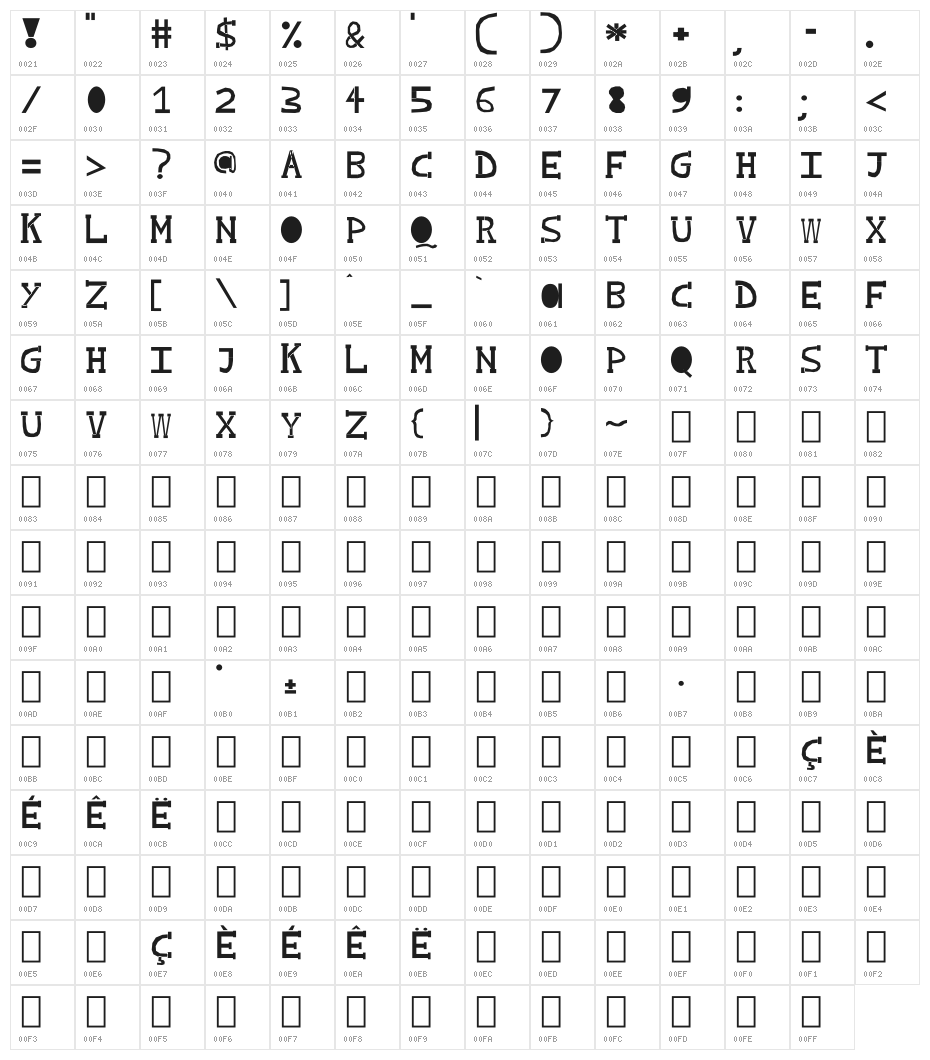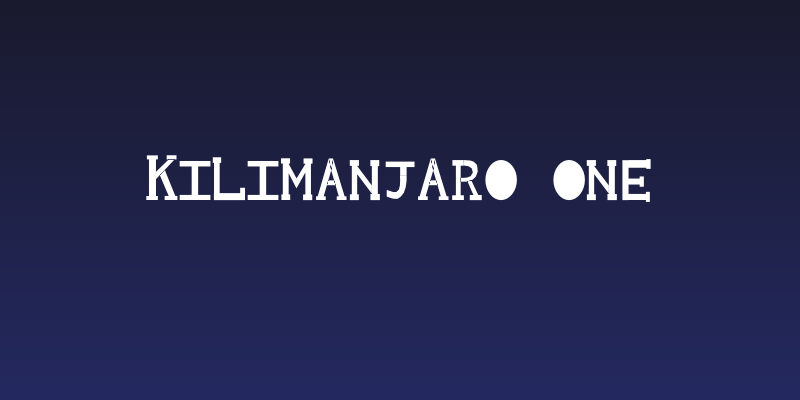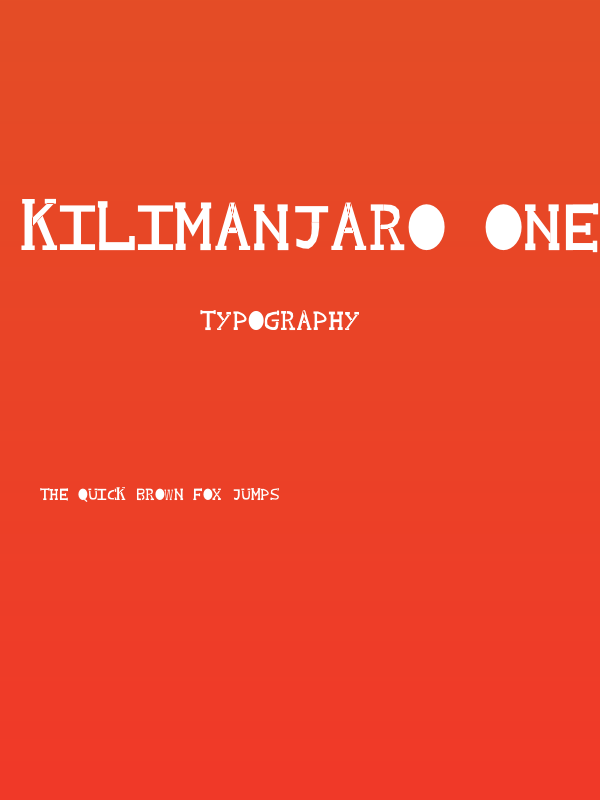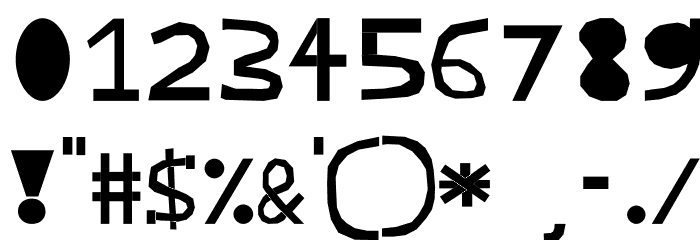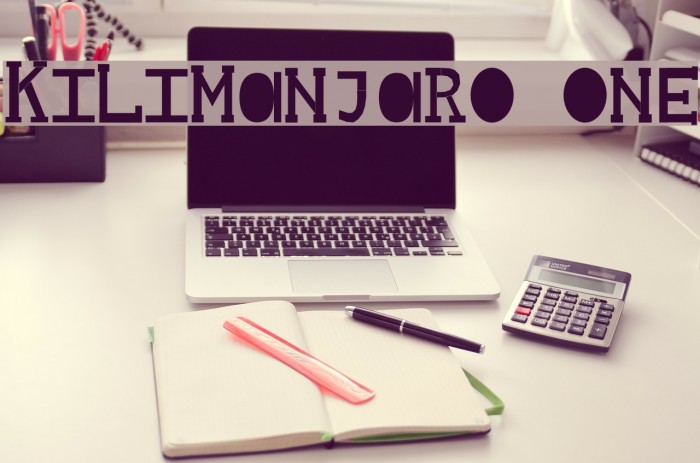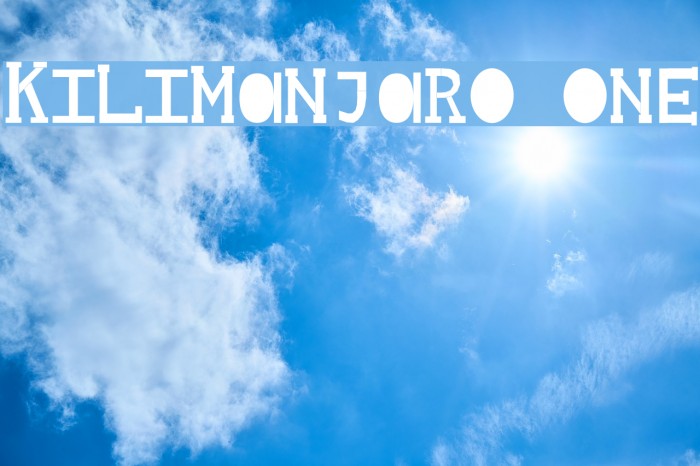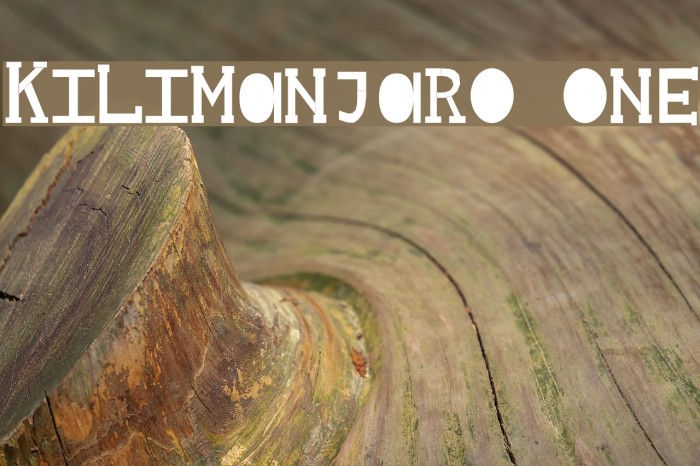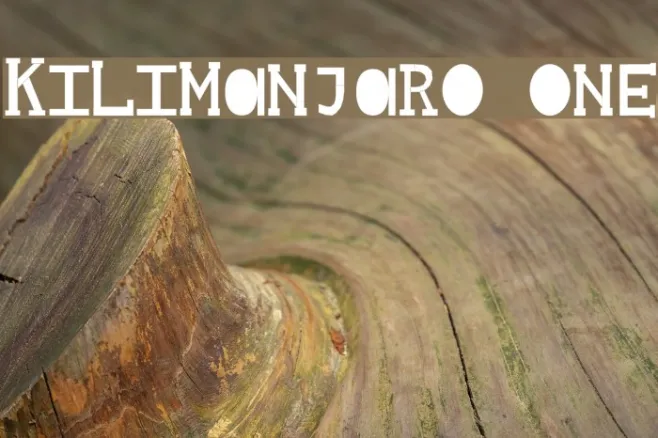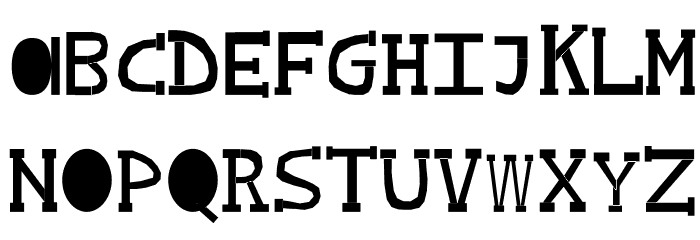
Kilimanjaro One Font
Kilimanjaro One Description
This font features a bold and distinctive design, characterized by its geometric and fragmented letterforms. The uppercase letters are particularly striking, with sharp angles and unique cutouts that create a modern, almost futuristic appearance. The lowercase letters maintain this geometric style, offering a cohesive look across the alphabet. Numbers and special characters follow the same design principles, ensuring consistency throughout. The font's boldness and unique style make it stand out, ideal for projects that require a strong visual impact. Its high contrast and wide character spacing enhance readability while maintaining its decorative appeal.
| Proposed Projects | Ideal for branding, posters, and headlines where a strong visual impact is needed. |